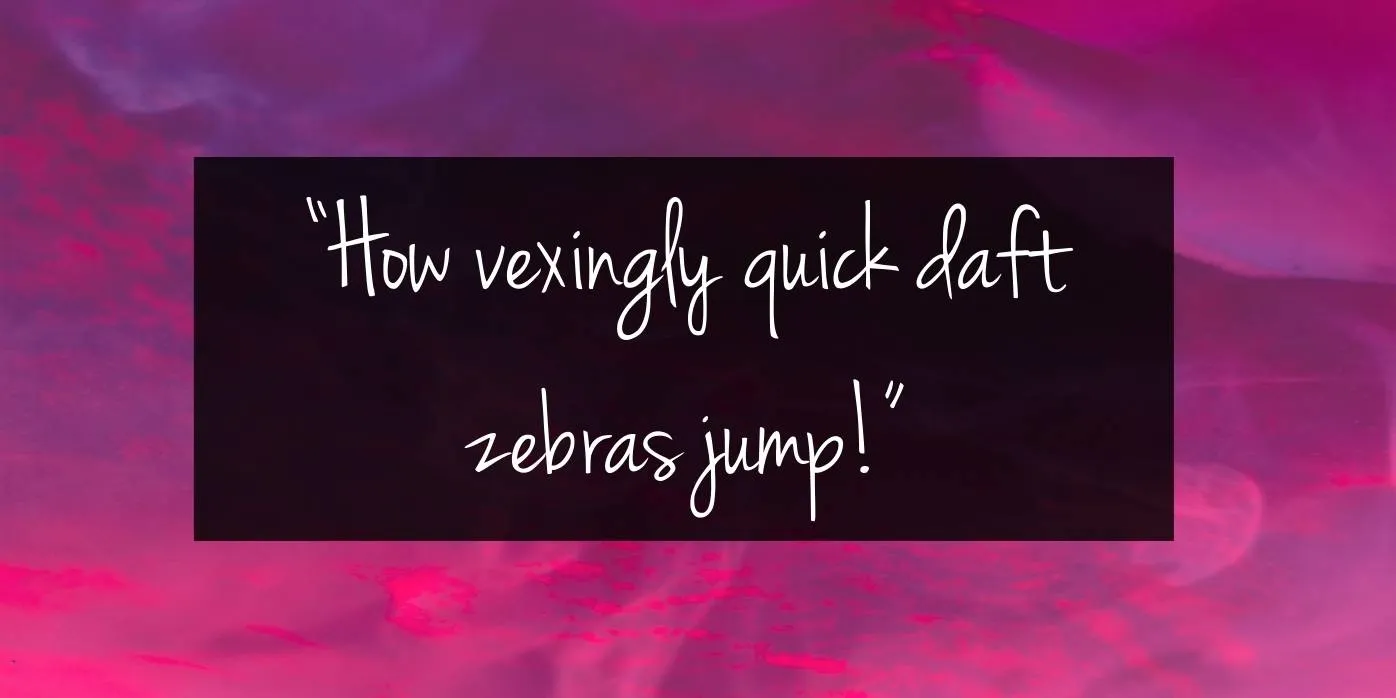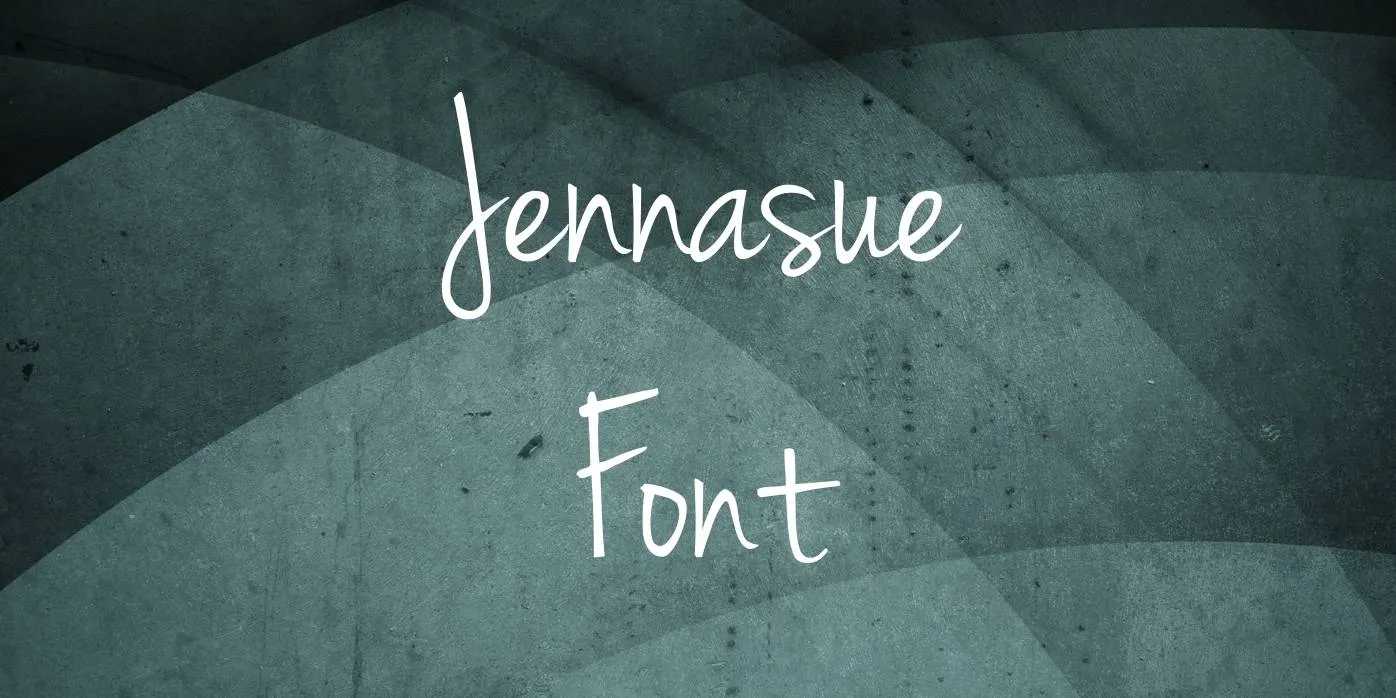
Jenna Sue Font
In this post, we introduce a stylish and attractive typeface named Jenna Sue Font. It was developed and published by Jenna Sue. It belongs to the handwritten font family. It was released by her foundry, Jenna Sue Design Co in the year 2011.
This typeface has keen and clean features. This cozy font includes upper and lowercase letters, numbers, and symbols. It has a unique design that makes it stand out from other handwritten fonts. Jenna Sue font is perfect for branding, logos, and more.
It’s also great for web design and can be used in HTML/CSS code. You can use it in different software like Microsoft Word, Adobe Photoshop, Adobe Illustrator, and many others. Its similar tomatoes font is suitable for a great number of designs. This stunning typeface comes in more than 132 unique and modern characters.
This stylish font family supports many languages including Latin, Cyrillic, and more. It has shorts tails on the letters which give it a natural and elegant look. You will have to download this typeface and used it in your projects.